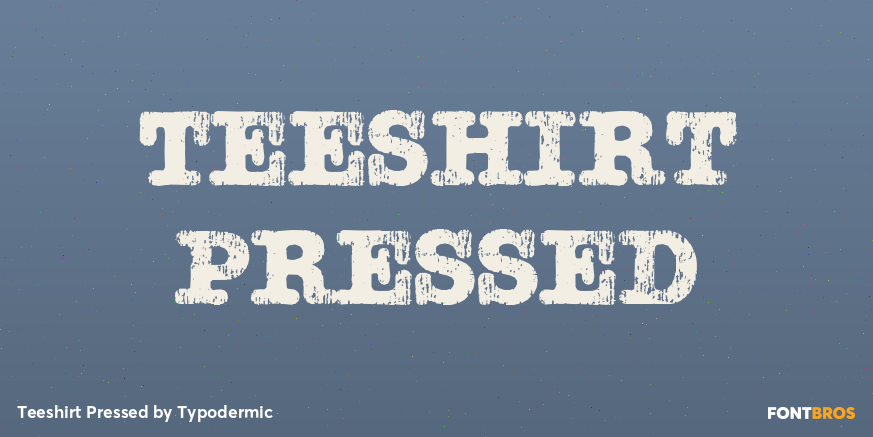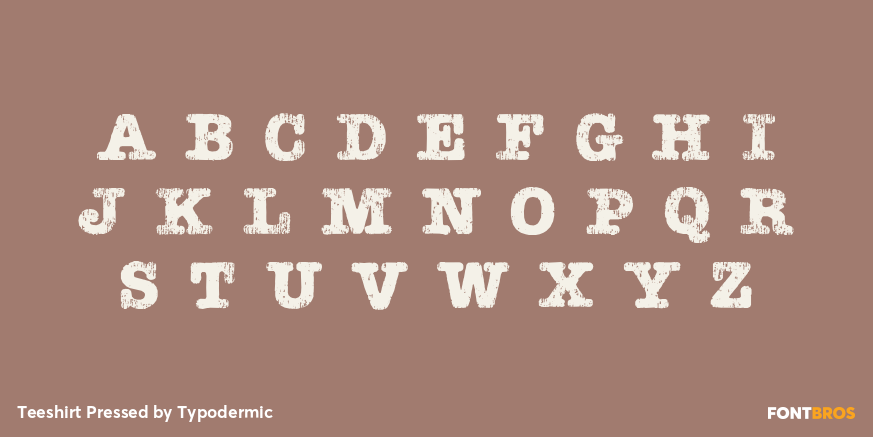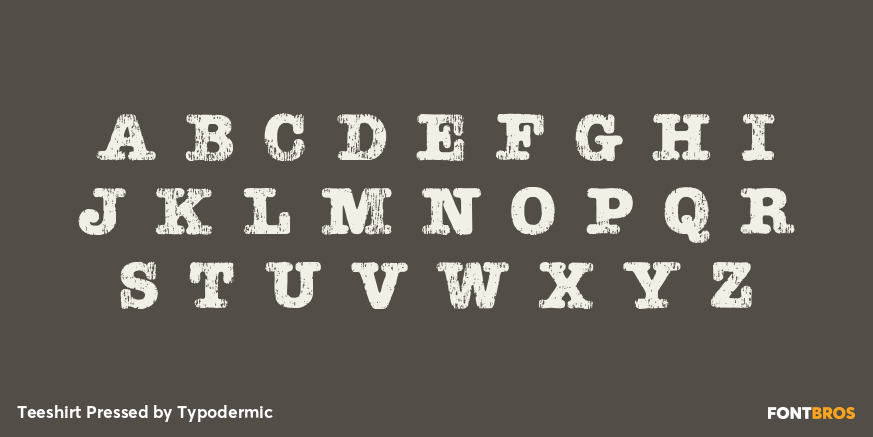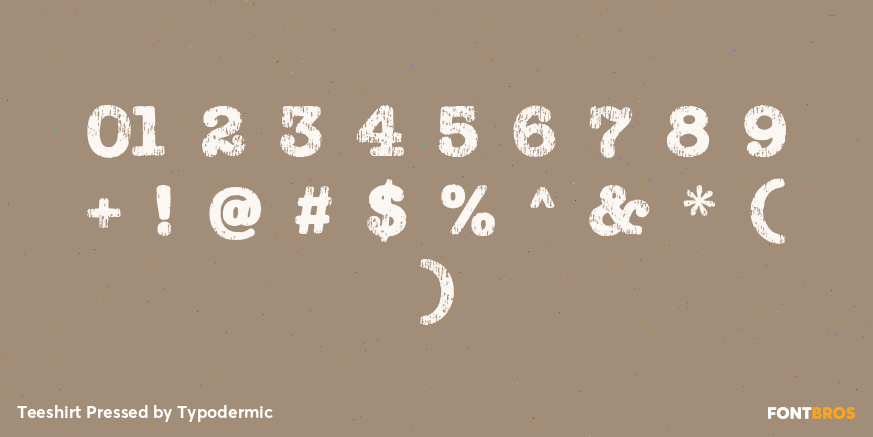
Teeshirt Pressed
Buy NowTeeshirt Pressed keeps the family’s cracked, uneven screen-print texture but seats the letters on a more orderly baseline. The worn jersey surface still suggests ink that has been stretched, washed, and carried through years of use; the steadier alignment simply makes the result easier to organize than Teeshirt Regular’s deliberately loose setting.
Use Teeshirt Pressed for fictional tour shirts, radio-station merchandise, bowling-league graphics, summer-camp souvenirs, period wardrobe, and retro retail campaigns that need aged apparel lettering with a controlled rhythm. It works best at display sizes where the broken ink remains visible, with a clean companion face handling dates, locations, and supporting details.